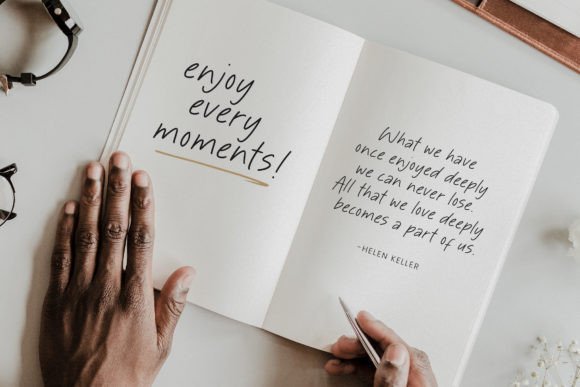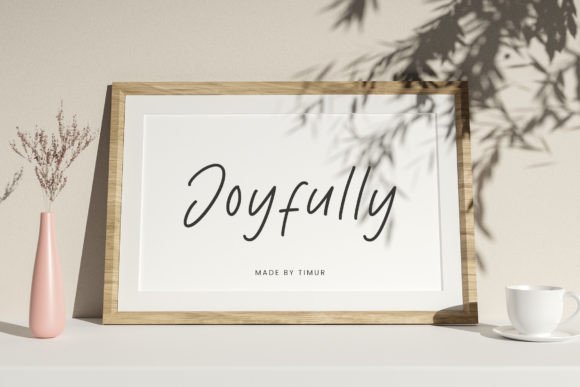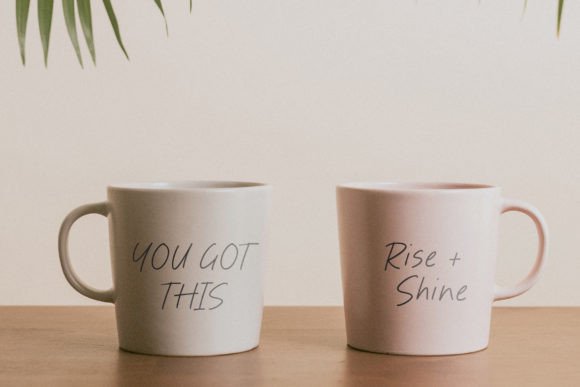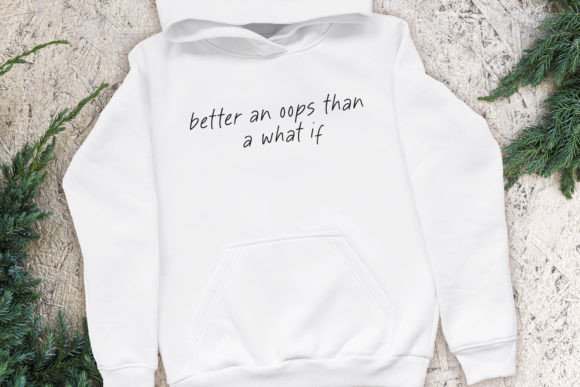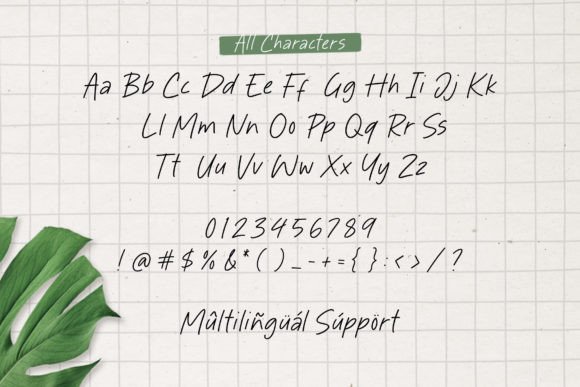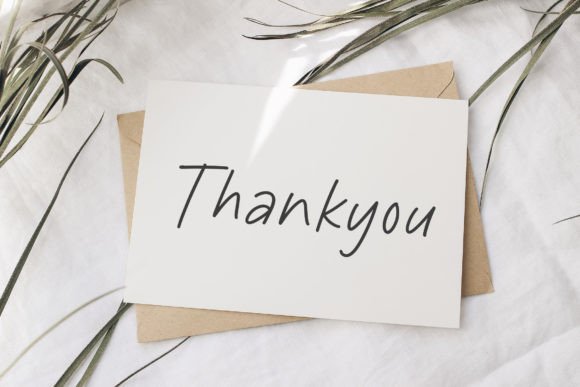
Discover the Beauty of Delight Paradise Font: Elevate Your Designs with Elegance
Are you on the hunt for a font that exudes elegance and sophistication? Look no further than the Delight Paradise Font. This stunning, flowing handwritten font is designed to add a touch of refinement to your favorite projects. With its incredibly distinct and timeless style, Delight Paradise is sure to capture your heart and inspire your creativity.
The Essence of Delight Paradise Font
Delight Paradise Font is a masterpiece of typographic design, boasting an elegant touch that sets it apart from other fonts. Its flowing, handwritten style is perfect for creating spectacular designs that demand attention. Whether you’re a designer, crafter, or DIY enthusiast, this font is sure to become your new go-to choice for adding a dash of sophistication to your work.
Key Features of Delight Paradise Font
- Elegant and Refined: Delight Paradise Font features an exceptionally elegant and refined design, making it perfect for projects that require a touch of sophistication.
- Flowing Handwritten Style: The font’s flowing, handwritten style gives it a unique and distinctive look that’s sure to capture your audience’s attention.
- Timeless Appeal: Delight Paradise Font has a timeless quality that ensures it will remain relevant for years to come, making it a valuable addition to your font collection.
- Versatile: This font is incredibly versatile, making it suitable for a wide range of projects, from branding and advertising to crafting and DIY.
Delight Paradise Font is an excellent choice for designers and crafters looking to add a touch of elegance to their work. Whether you’re creating:
- Branding and Advertising Materials: Use Delight Paradise Font to create stunning logos, business cards, and brochures that showcase your brand’s sophistication.
- Crafting and DIY Projects: Add a touch of elegance to your crafting and DIY projects, such as handmade cards, gift tags, and scrapbooking pages.
- Web and Social Media Graphics: Delight Paradise Font is perfect for creating eye-catching web and social media graphics, including blog headers, social media posts, and website content.
Tips for Using Delight Paradise Font
To get the most out of Delight Paradise Font, here are some expert tips:
- Pair with Contrasting Fonts: Pair Delight Paradise Font with contrasting fonts to create visual interest and add depth to your designs.
- Experiment with Colors: Try out different color schemes to find the perfect match for your design and brand.
- Play with Size and Style: Experiment with different font sizes and styles to add emphasis and create visual hierarchy.
In conclusion, Delight Paradise Font is a stunning, elegant, and refined font that’s perfect for designers and crafters looking to elevate their designs. With its flowing handwritten style, timeless appeal, and versatility, this font is sure to become a staple in your font collection. So why wait? Fall in love with Delight Paradise Font and start creating spectacular designs today!